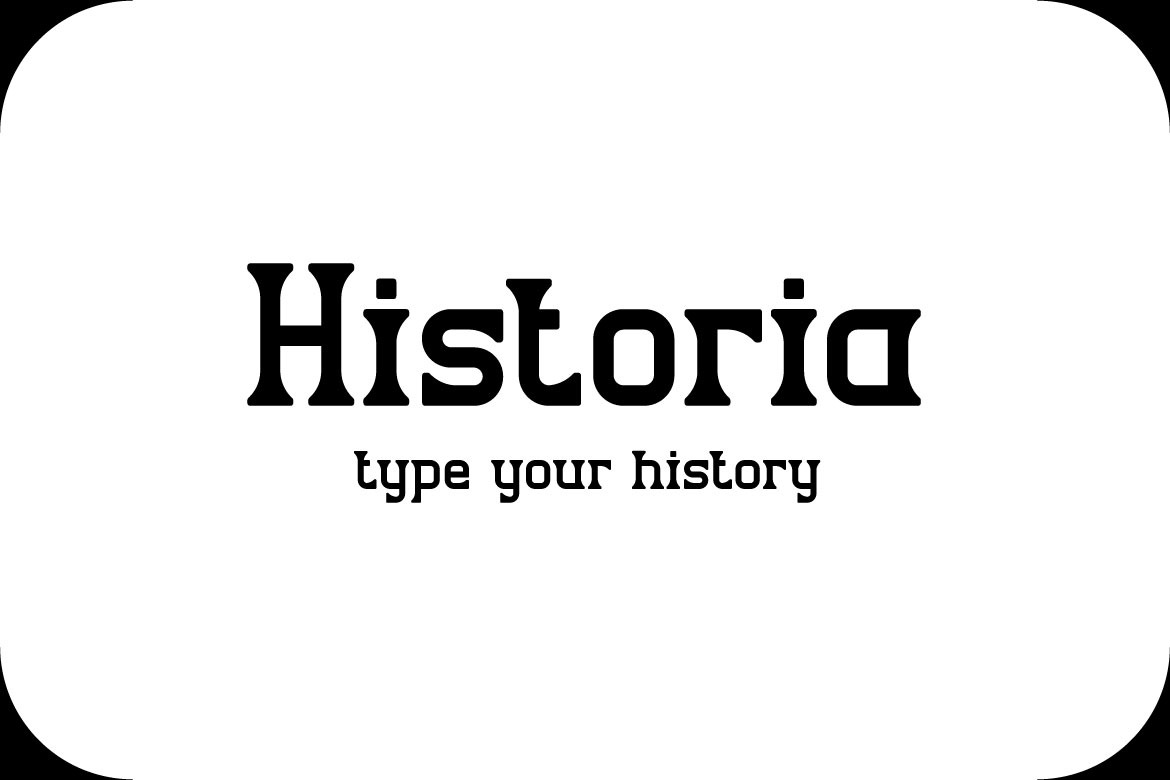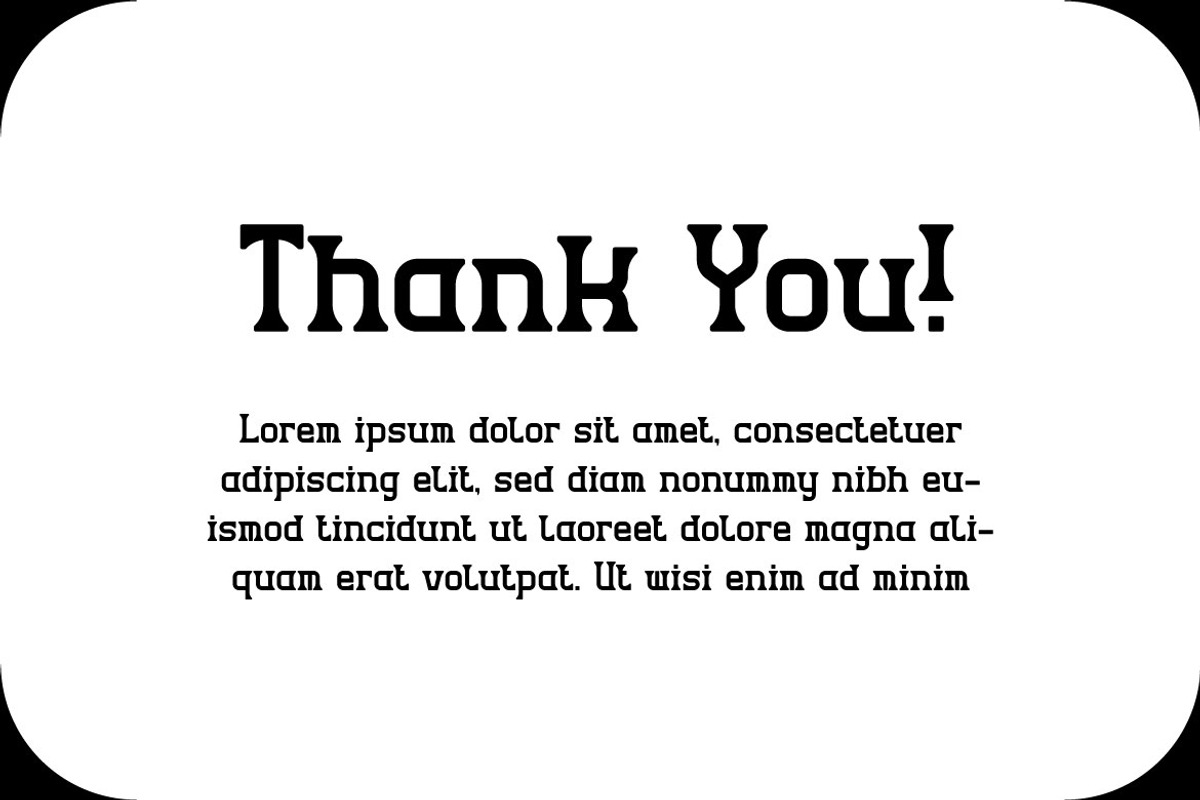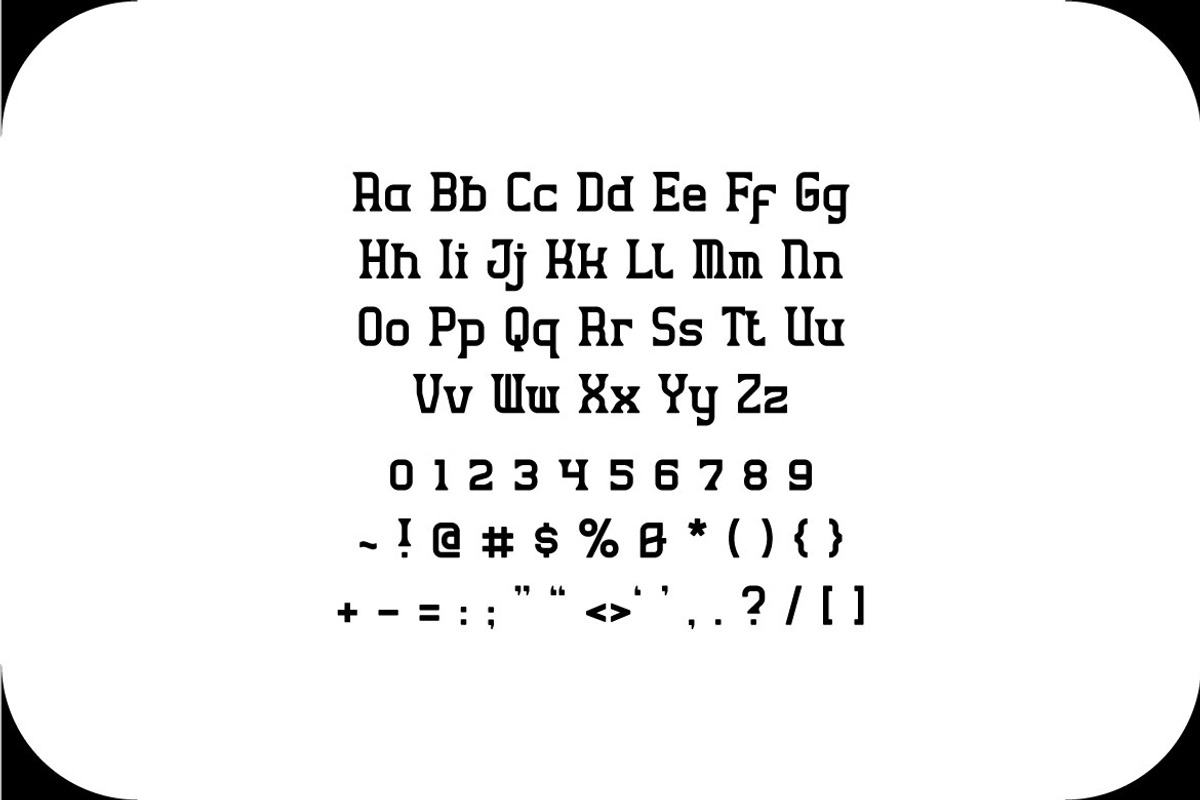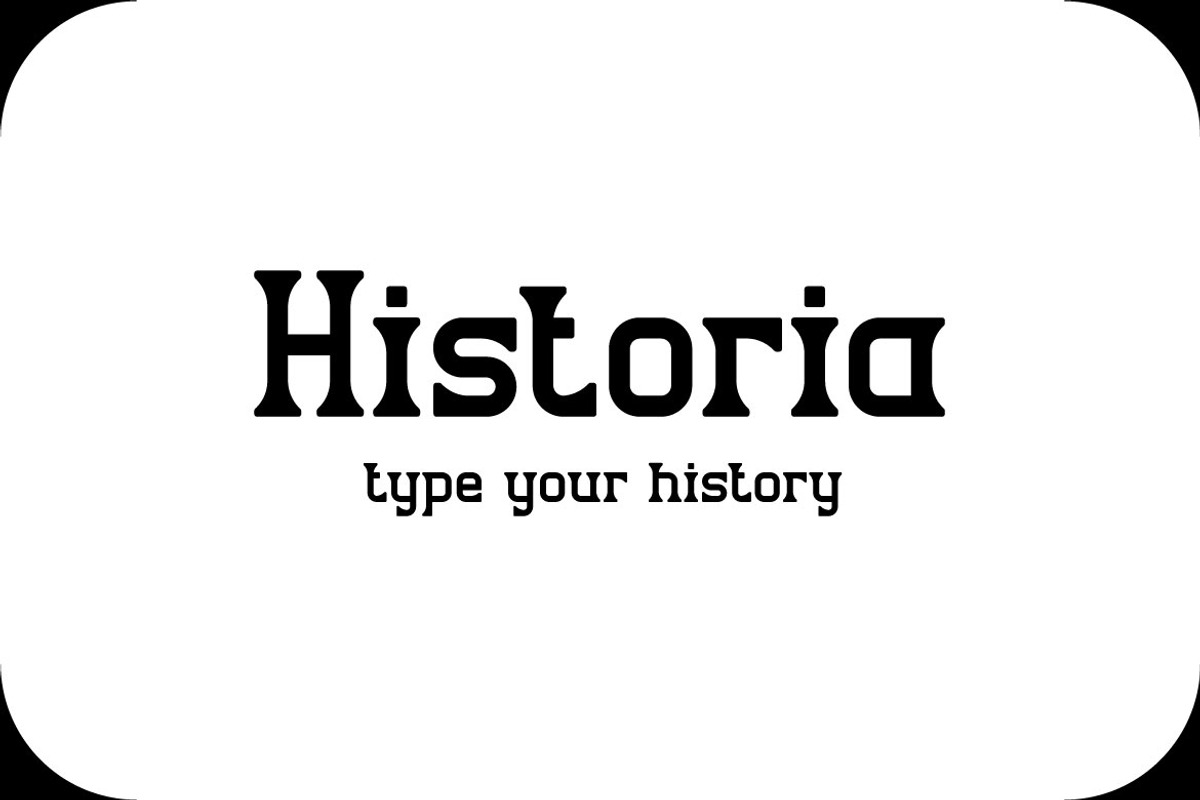
Historia - Display Font
HISTORIA is strong font like a pillar. It brings a firm look with the classic style. It suits perfectly in the strong forms, such as in the title of a magazine, headline, newspaper, office work, poster, book cover, logo, banner, also it can be used in any-scale artwork. Historia have the uppercase and lowercase characters.